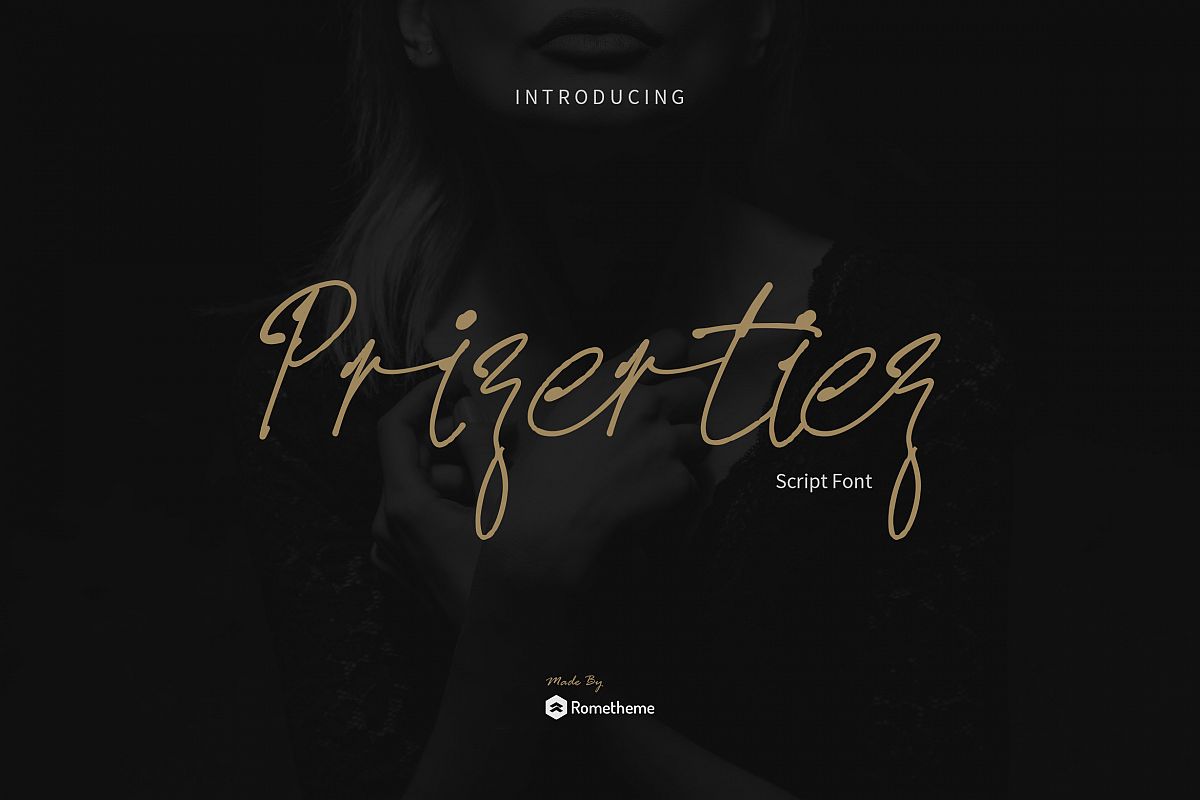
Prizertiez - Script Font
Prizertiez is script font, handwritten typeface. It has a elegant, classy look and cool. It’s a great font for fashion, apparel projects, signature, album cover, logo, branding, magazine, social media, & advertisements, but also works great for other projects.Highlight :
Highlights:
• Basic Latin A-Z and a-z
• Symbols